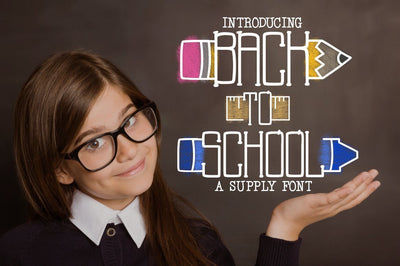
Back to School
This font has great character and allows you to make your words into pencils, crayons, and/or rulers! Perfect for all those school projects!